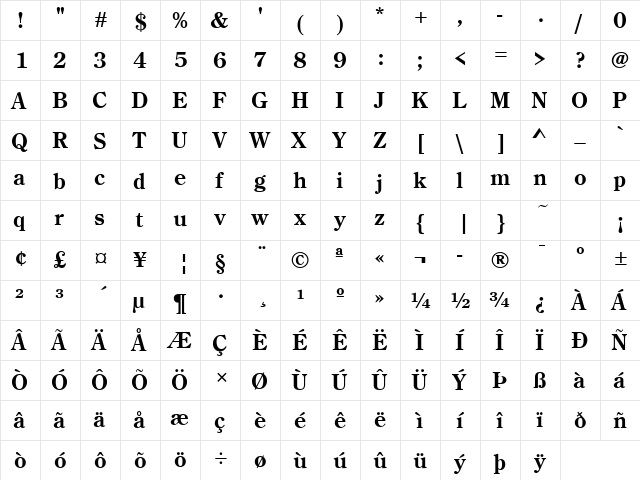
CenturyOldStyT Bold Font Preview
CenturyOldStyT Bold
CenturyOldStyT Bold Font Details
Design Context for CenturyOldStyT Typeface
CenturyOldStyT takes a measured approach to typography — its balanced proportions and neutral character make it a reliable workhorse for both digital and print work. The heavy weight commands attention and anchors typographic hierarchies.